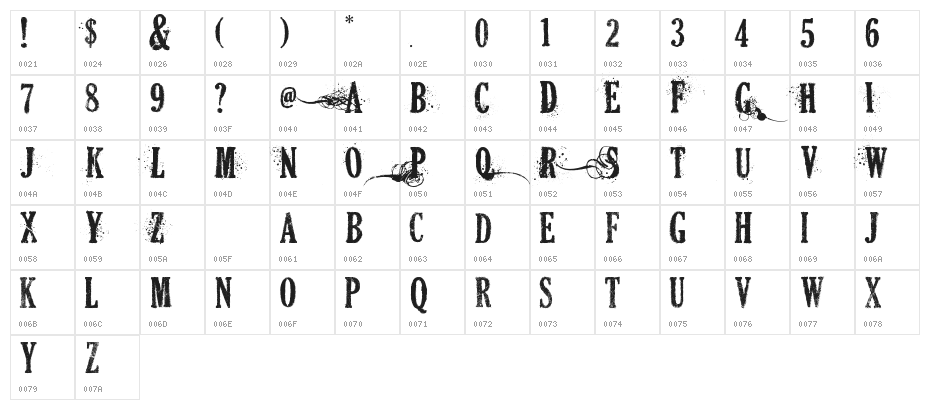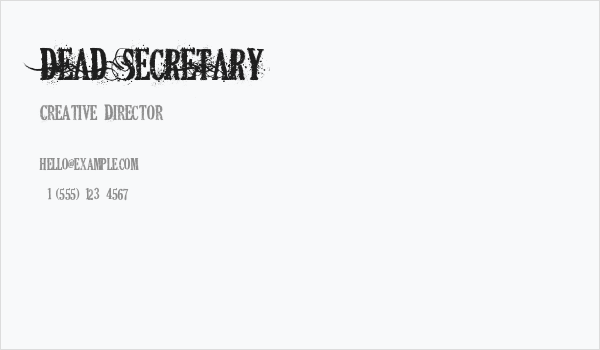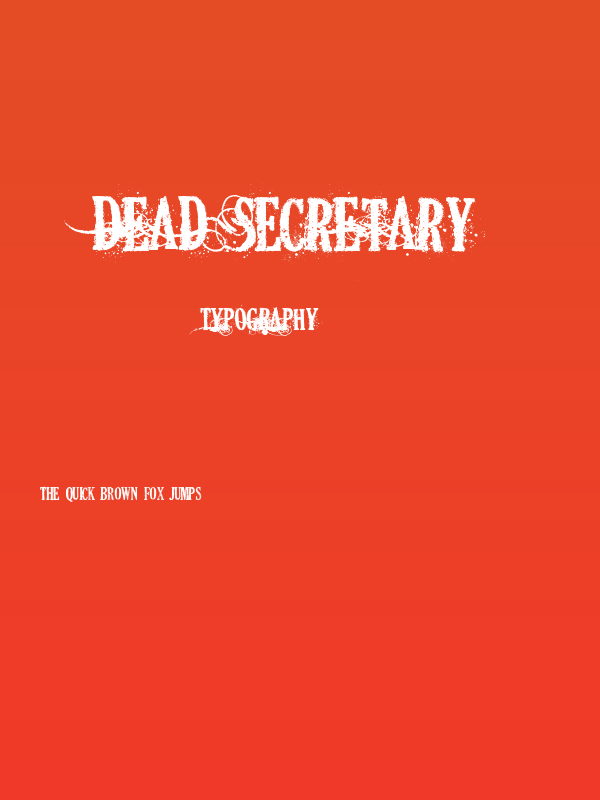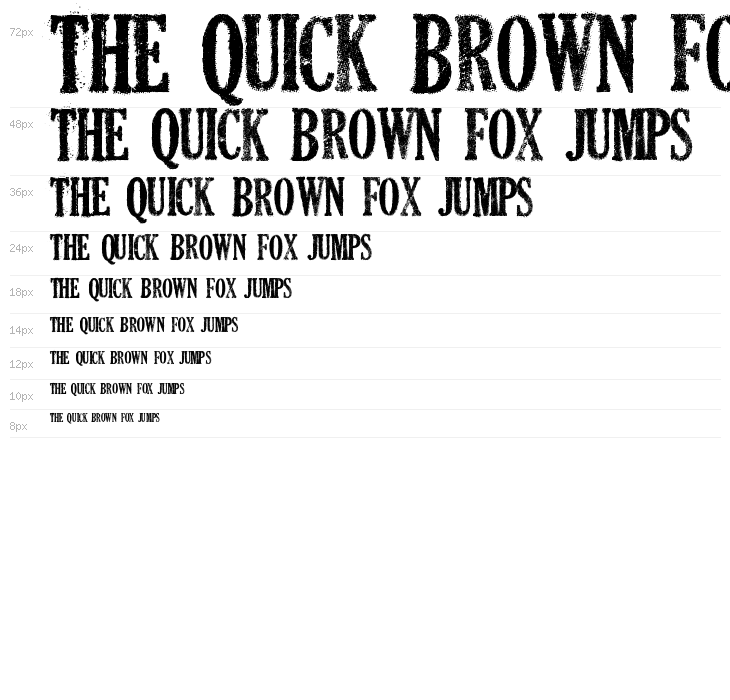
DEAD SECRETARY Font
DEAD SECRETARY Description
This font features a bold, distressed style with a textured appearance that gives it a grunge or vintage feel. The uppercase letters are prominent and have a slightly uneven, weathered look, adding character and depth. The numbers and special characters maintain this distressed aesthetic, making the font suitable for designs that require a rugged or edgy touch. The overall impression is one of strength and boldness, with a unique texture that sets it apart from more traditional fonts.
| Proposed Projects | Ideal for album covers, posters, branding for edgy or alternative products, and any design requiring a bold, textured statement. |